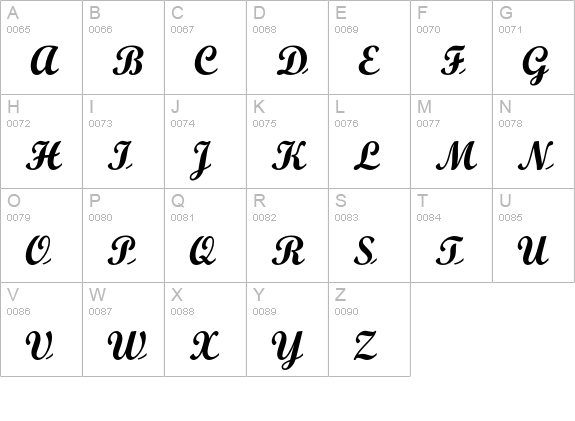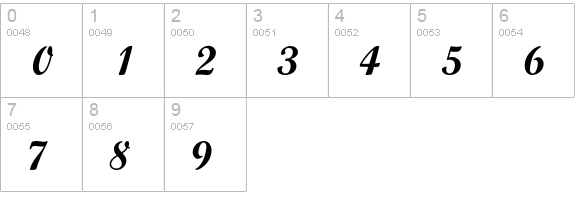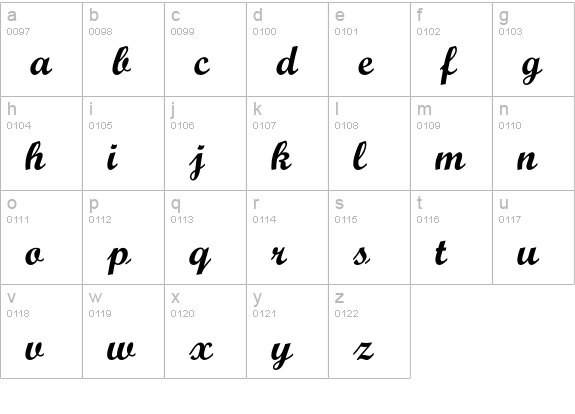
OPTIScript-Bold Font Details
OPTIScript-Bold is a strong, high-contrast variant in the OPTIScript typeface family \xE2\x80\x94 well suited to headlines, attention-grabbing titles, and strong calls-to-action.
OPTIScript-Bold is a modern and stylish typeface designed for bold and impactful designs. This font exudes confidence and sophistication, making it perfect for headlines, titles, and branding projects. With its sleek lines and sharp edges, OPTIScript-Bold commands attention and leaves a lasting impression on the viewer. Whether you're designing a poster, logo, or website, this font will elevate your project to the next level. The best part is that OPTIScript-Bold is available for free download at FontsMarket.com. You can easily access this versatile font and use it in your personal or commercial projects without any cost. Don't miss out on the opportunity to enhance your designs with the striking and dynamic OPTIScript-Bold font. Download it today and let your creativity shine!